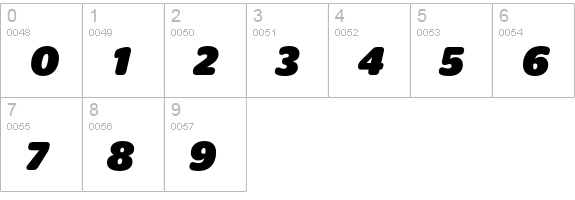
Stag Sans Round Black Italic Font Details
Stag Sans Round Black Italic is a maximum-weight, dramatic, italic variant in the Stag typeface family \xE2\x80\x94 well suited to maximum-impact headlines, posters, and packaging.
Stag Sans Round Black Italic is a bold and dynamic font that exudes strength and modernity. Its sleek lines and rounded edges give it a unique and contemporary look that is perfect for making a statement in any design project. The italic style adds a touch of sophistication and flair, making it ideal for headlines, branding, and editorial layouts. This versatile typeface is free to download at FontsMarket.com, where you can access its full range of characters and glyphs. Whether you're looking to add a touch of boldness to your designs or make a striking impact with your typography, Stag Sans Round Black Italic is the perfect choice. Download this font today and elevate your projects with its powerful and stylish aesthetic.